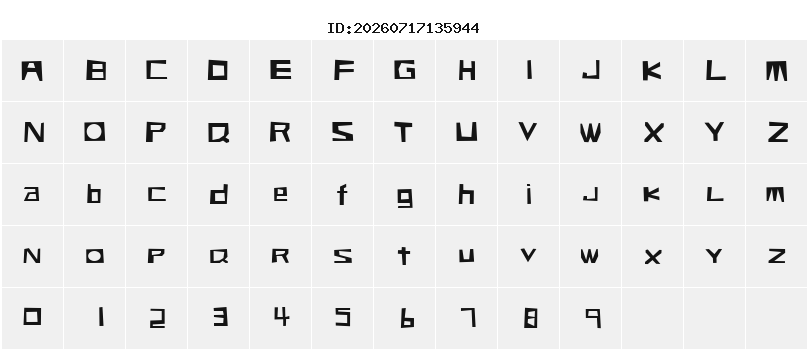
• Font Name: Blocker
• Full Font Name: Blocker Heavy
About Blocker.ttf
Blocker.ttf is a modern, elegant sans-serif font designed for ultimate readability and visual harmony. Perfect for branding, headlines, web design, and print materials.